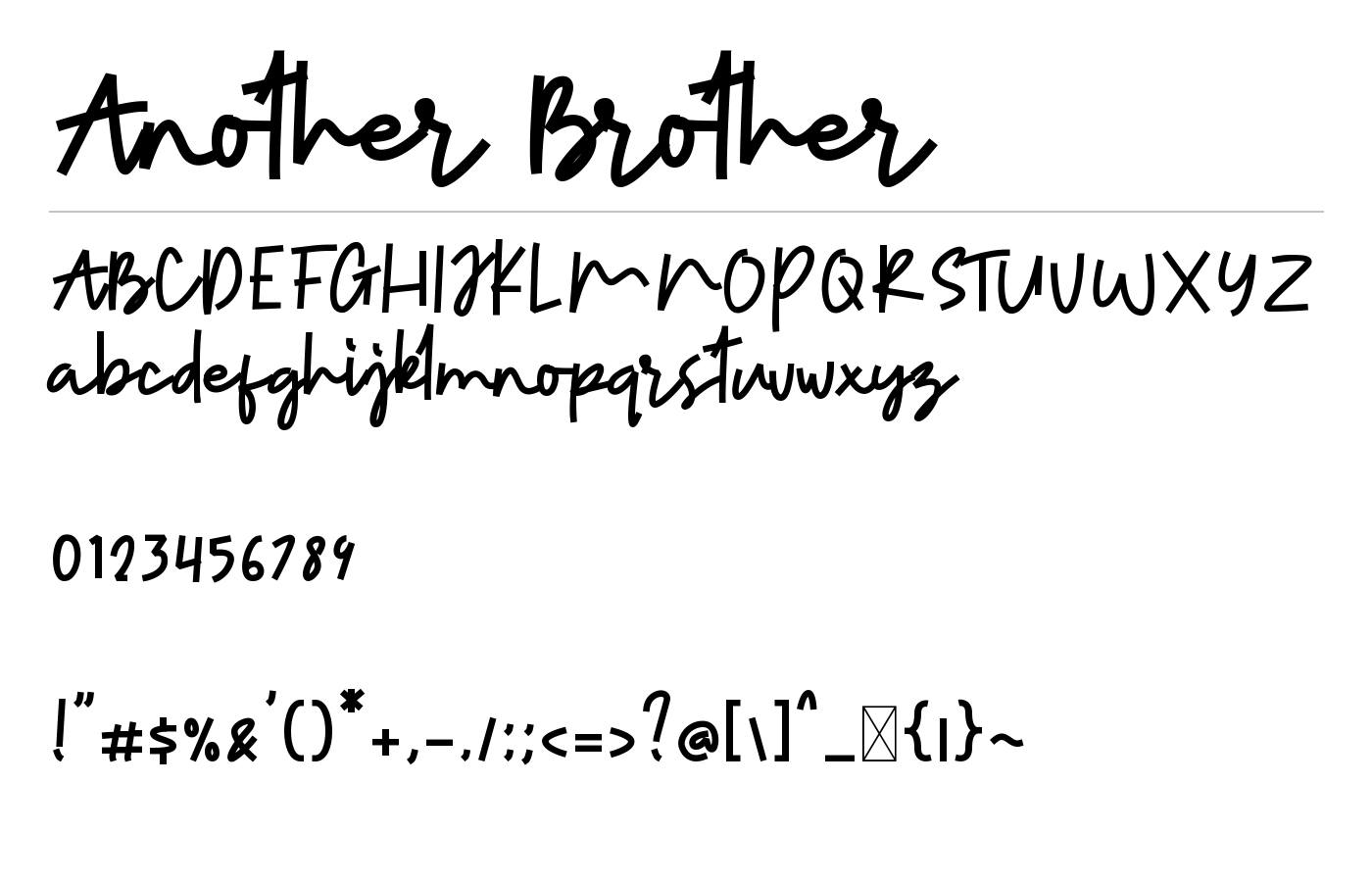
Another Brother is a casual, handwritten-style font that combines a lively, organic feel with legible forms. Its slightly uneven strokes and playful character shapes give it a friendly and approachable personality, making it ideal for creative projects, informal branding, and personal communications. This font works well for logos, social media graphics, and invitations where a warm, human touch is desired.
Another Brother Font